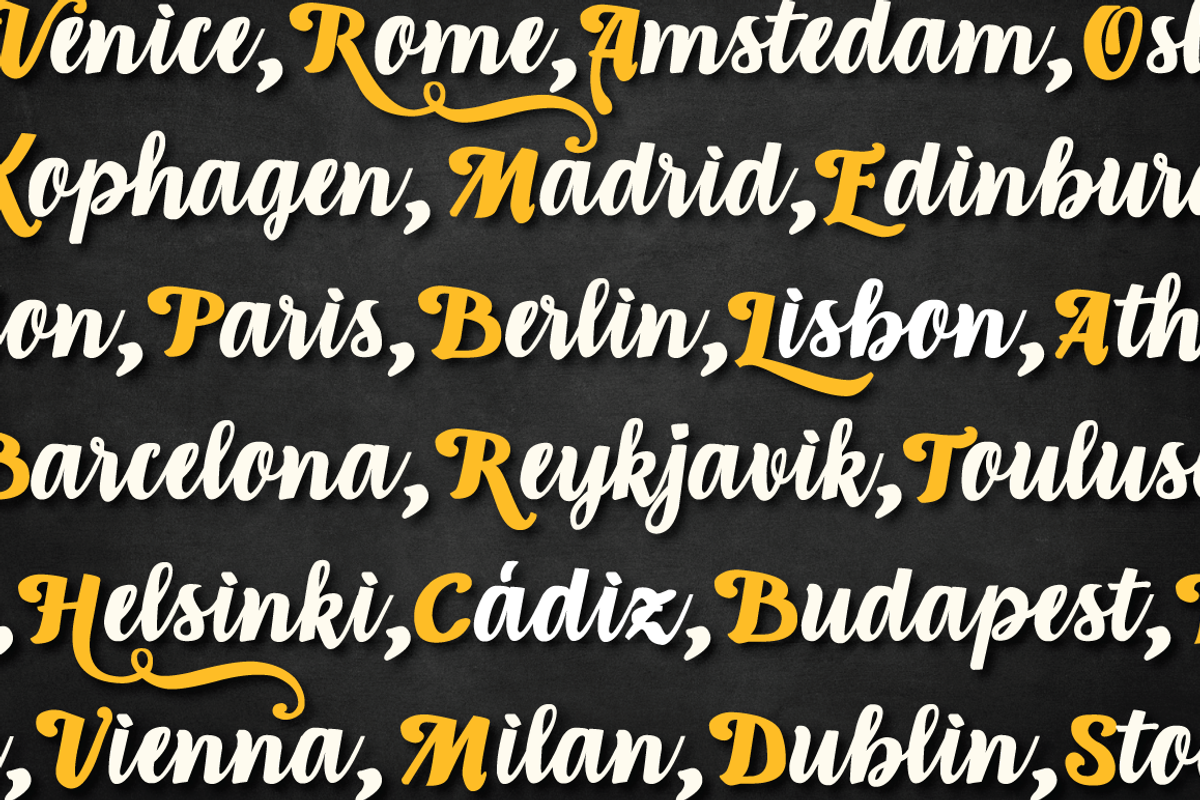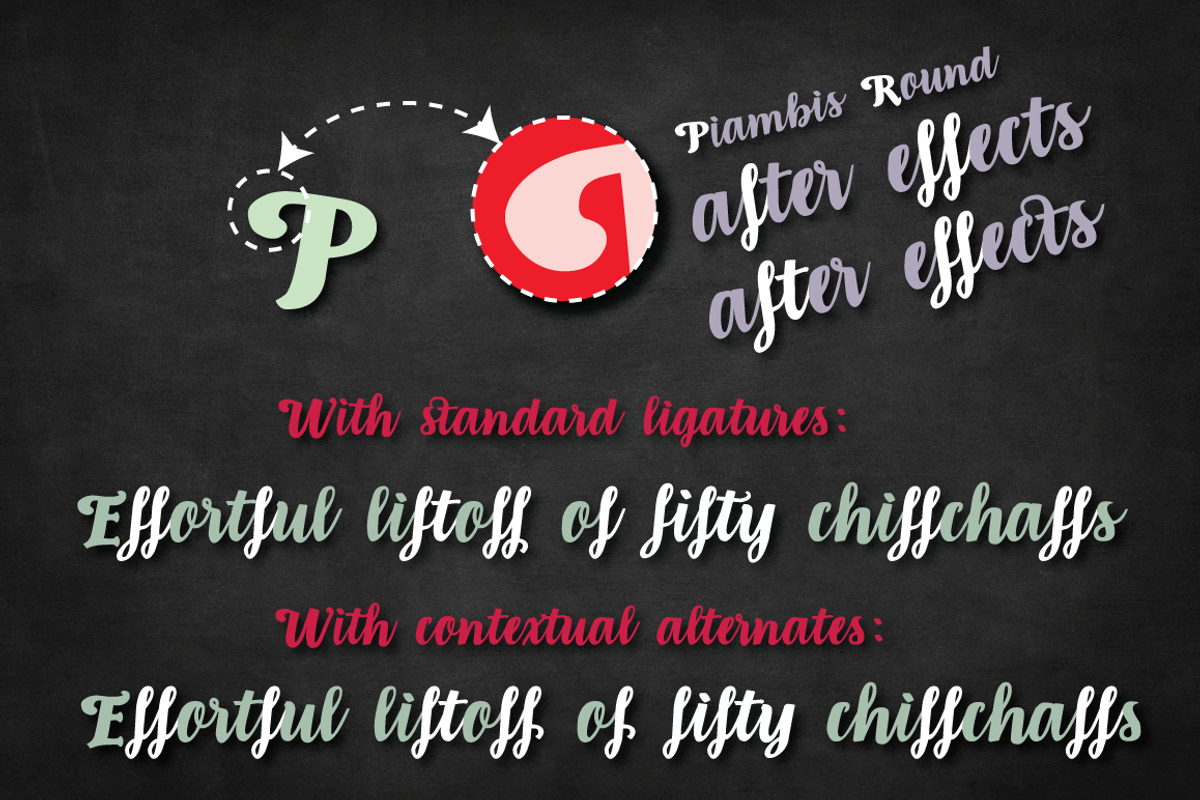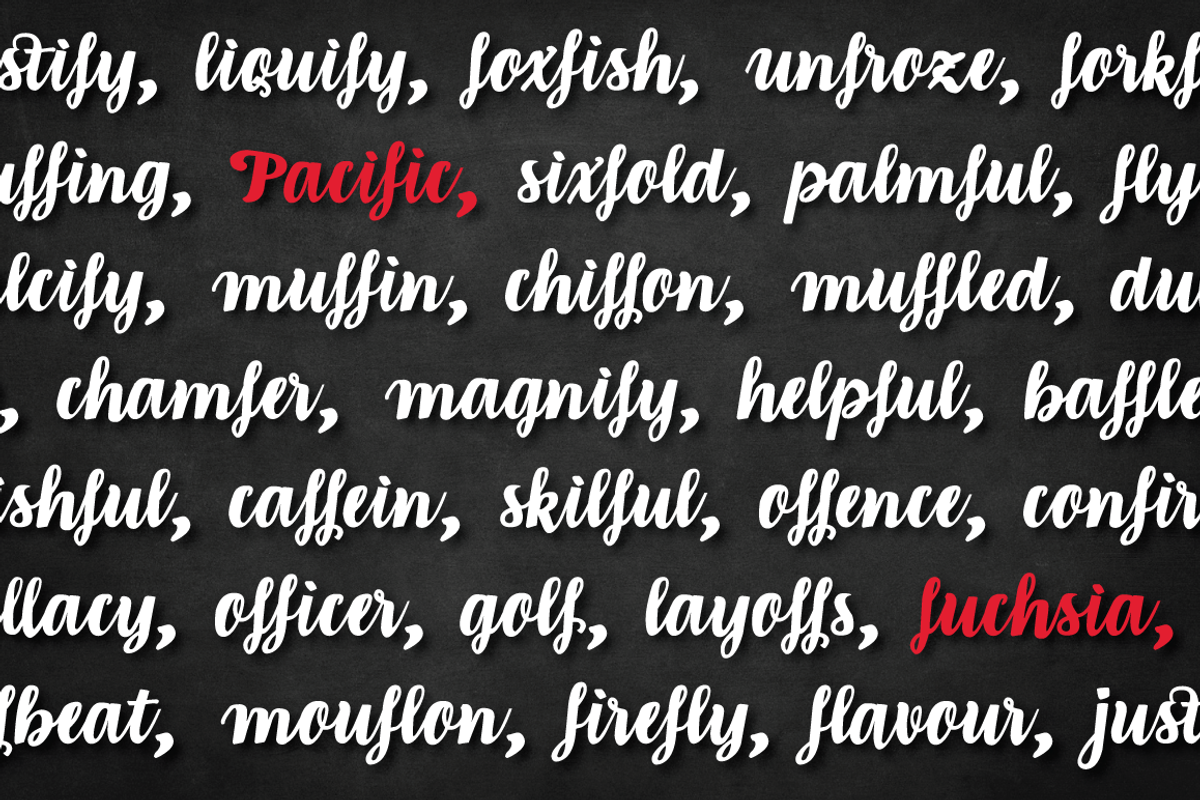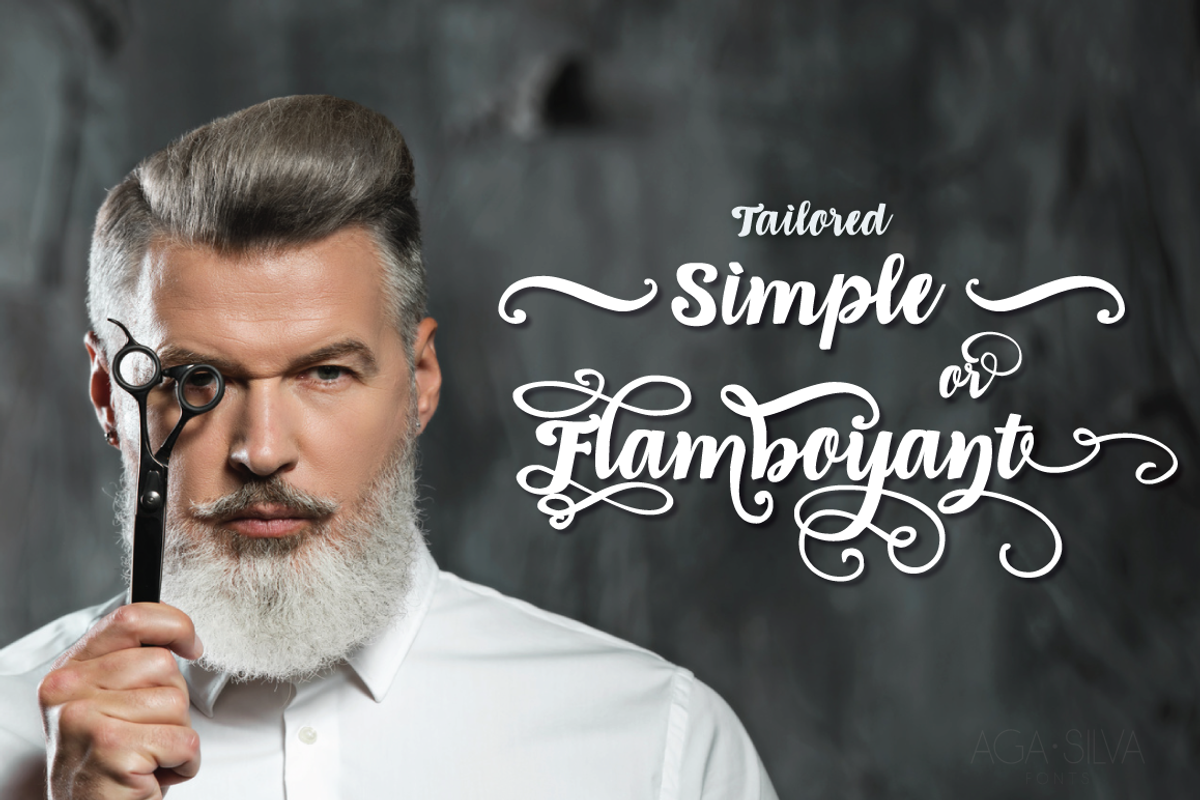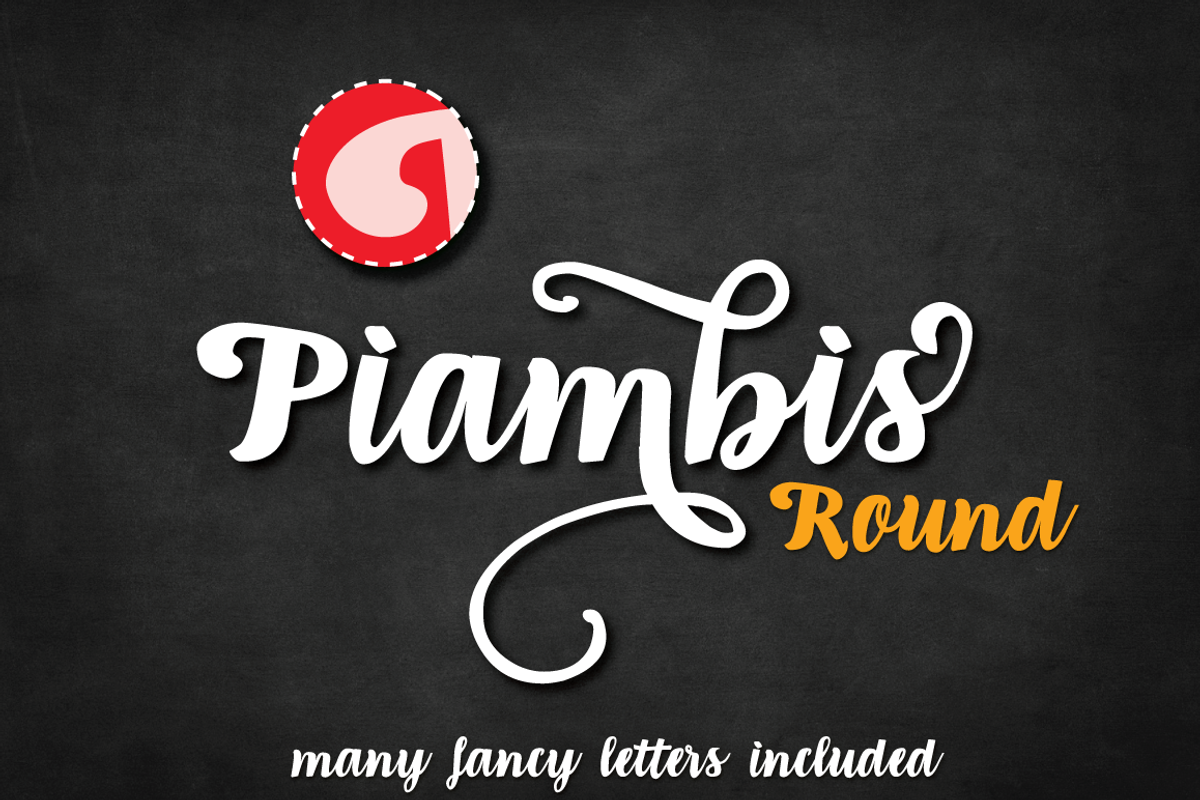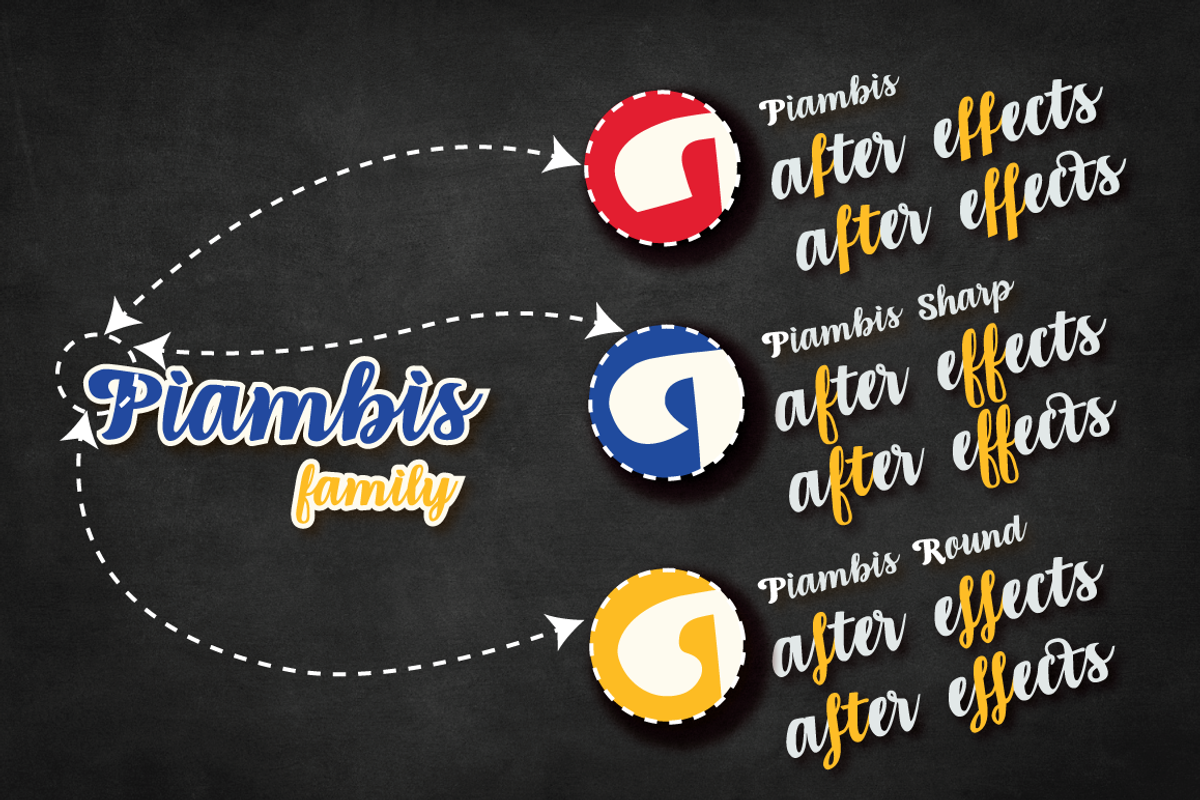
Piambis Round open type font
Piambis Round open type font by Aga Silva is a font selected for branding, posters, packaging, typography.
- Piambis Round is handwritten font that boasts great variety of glyphs - many of which are fancy alternates for standard letters (shown in pr
- About the family: The chief difference between the files in the family are finishes to the capital letters (in all languages) and appearance
- OT features: All Alternates, Contextual Alternates, Kerning, Standard Ligatures, Stylistic Set 1, Stylistic Set2, Swash, LANGUAGES COVERED:
Why Piambis Round open type font is worth a look
Piambis Round open type font by Aga Silva fits naturally into Branding, posters, packaging, typography.